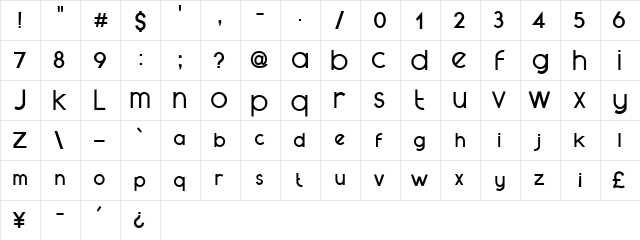
future mood Regular
Design Context for future mood Typeface
future mood channels digital-age aesthetics through its sharp, structured letterforms — ideal for brands that want to signal innovation.
Pro Tip: Use future mood in combination with a neutral sans for body text. Let it define the brand voice in headlines while keeping reading comfortable elsewhere.